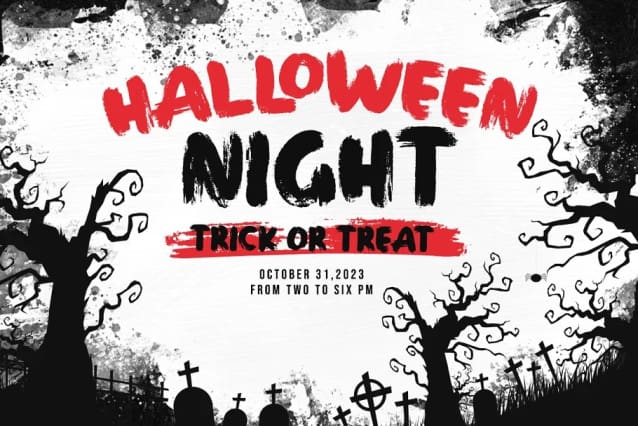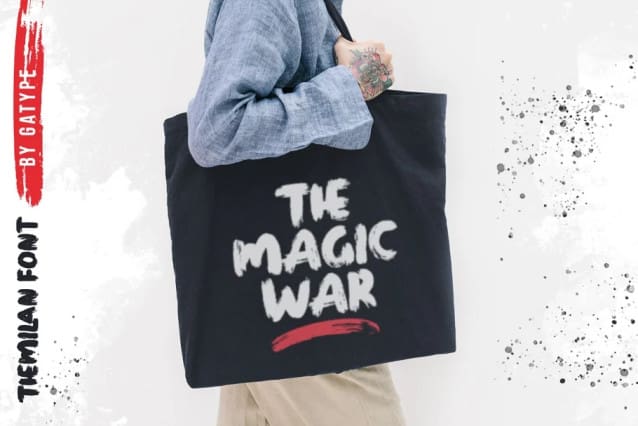
Themilan Brush Font
Themilan Brush Font is a super casual handwritten script with a detailed brush texture, and a unique all-caps sans serif font, it also has dashing strokes across all letters to add style to your designs. It can be used for various purposes. such as titles, signatures, letterheads, nameplates, labels, newsletters, posters, logos, correspondence, wedding invitations, badges, etc.